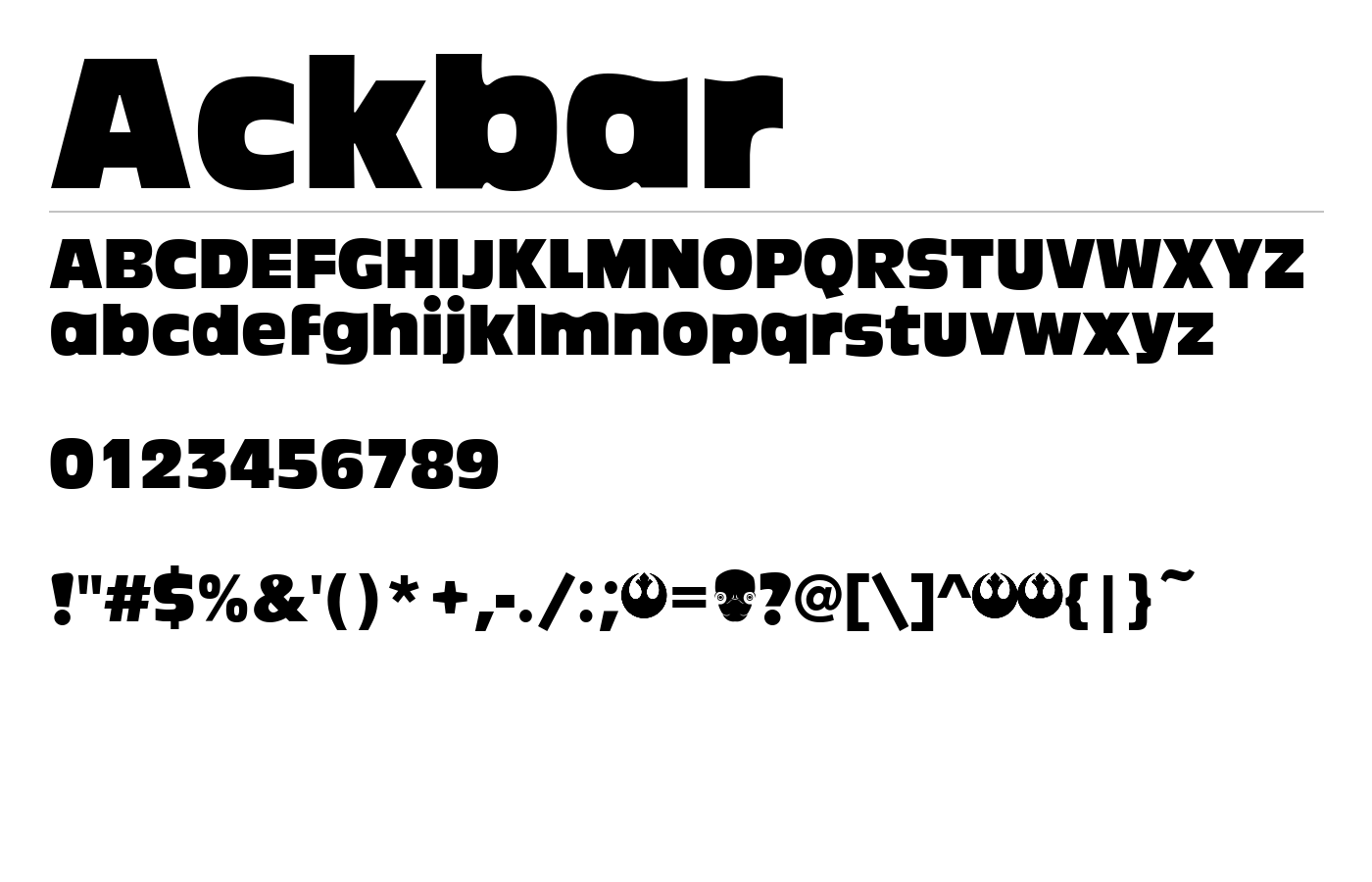
Ackbar is a bold, heavy-weight sans serif font with a wide and sturdy appearance, featuring strong geometric shapes and a high x-height that enhances readability. Its playful yet robust style, with rounded terminals and slightly quirky letterforms, makes it ideal for impactful headlines, logos, and branding that need a confident, approachable vibe. This font suits creative, modern designs looking to balance strength with a touch of fun.
Ackbar Font